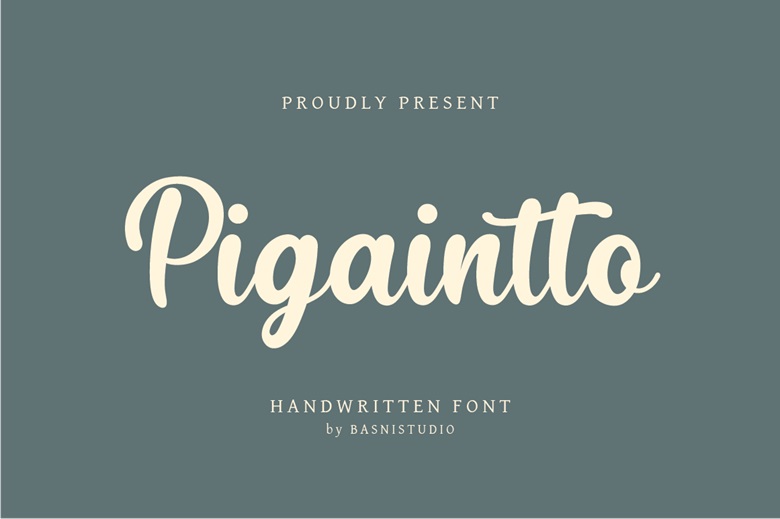
Pigainto Font
Script
Introducing Pigainto Font, a meticulously crafted handwritten script that blends artistic flair with digital precision. Designed with love and an eye for detail, this versatile typeface is perfect for elevating your brand identity, website headers, and editorial layouts. Its natural, flowing strokes and varied character weights create an authentic, human touch that resonates with audiences. Pigainto includes a comprehensive set of glyphs, ligatures, and alternates, offering immense creative flexibility for logos, packaging, social media graphics, and invitations. Whether you're aiming for a casual, friendly vibe or a sophisticated artistic statement, this font provides the personality and polish to make your designs stand out and connect.